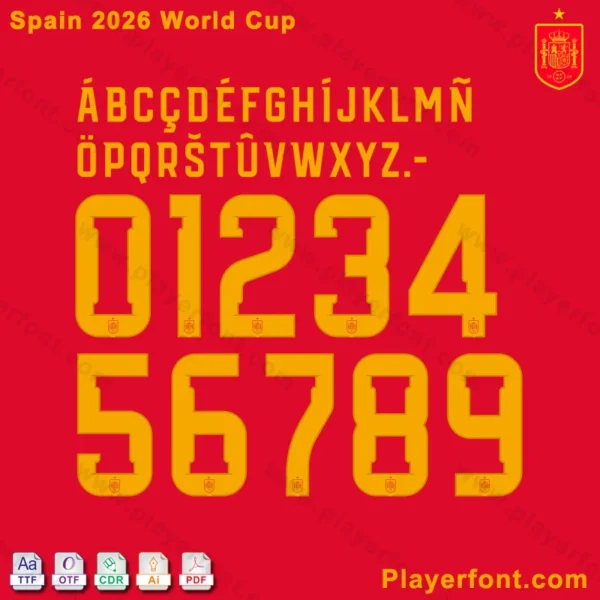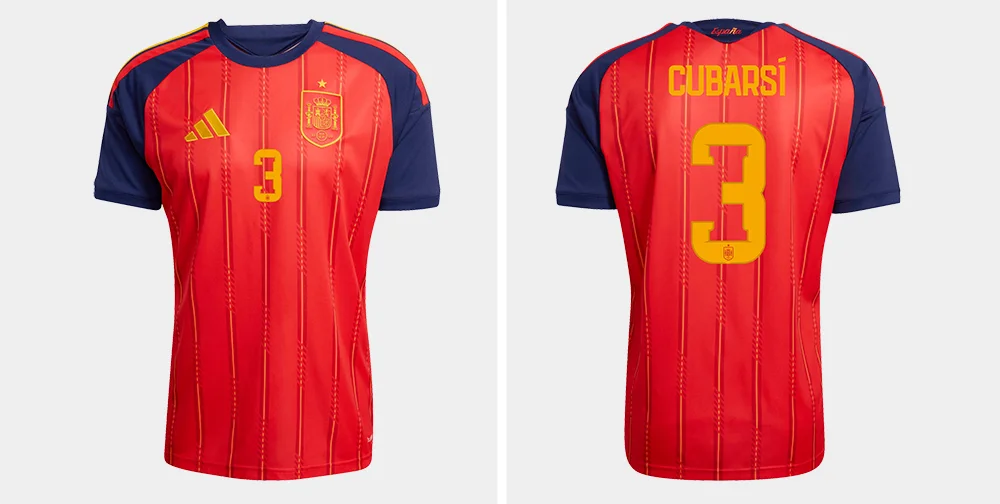
Elevate your design projects with the Spain 2026 World Cup Font, a meticulously crafted typeface inspired by Spanish soccer legacy and the thrill of the 2026 World Cup. Whether you’re creating fan merchandise, sports graphics, branding materials, or artistic works, this font package offers versatility and a distinct Spanish athletic aesthetic.
Official Spain 2026 World Cup home jersey by Adidas, showcasing the front with RFEF crest and number 3, and the back with player name “CUBARSÍ” and number.A closer look at the Spain 2026 World Cup Font’s letters and numbers, showcasing its unique design and soccer-themed aesthetics.
The font features unique Spanish soccer-inspired elements in its letters and numbers, making it ideal for World Cup-themed projects, Spanish sports blogs, soccer team promotions, and any design that demands a bold, dynamic look.